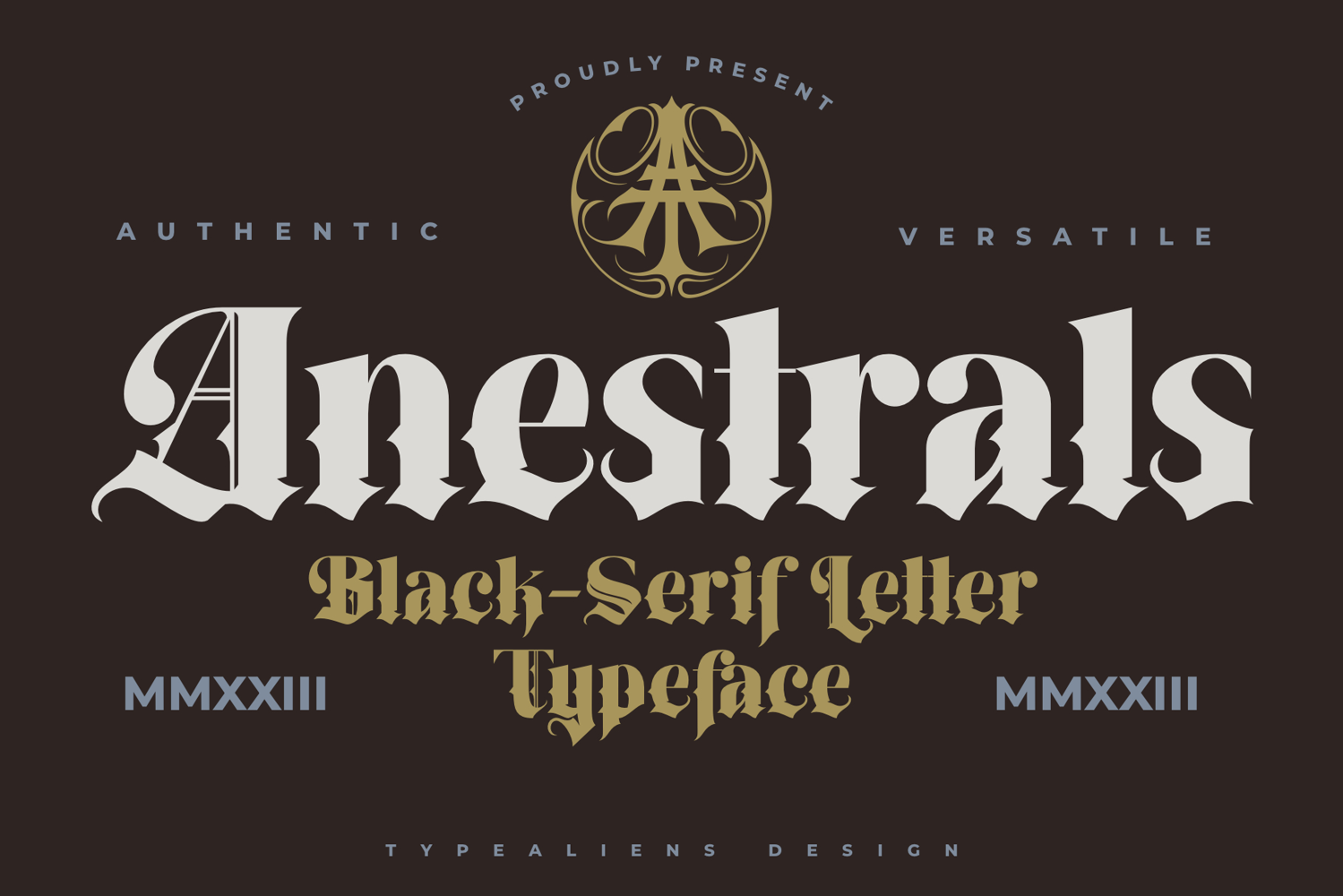
Anestrals
We are pleased to introduce Anestrals, a font that combines the basic form of a serif font with the gothic style of Blackletter, resulting in a font that has a tough, bold, retro, and slightly gothic feel.
This font is perfect for display and can also be used as a headline for articles or titles. Because it's bold, when used as a title or headline, it looks bold and more striking. The retro and gothic feel conveys a unique and distinctive impression. Therefore, this font is also attractive for use as a trademark or branding for products that certainly have characteristics that align with Anestrals' image.
The hope is that this font will be used more widely for bold, distinctive purposes, making it easily recognizable and embedded in the minds of many.